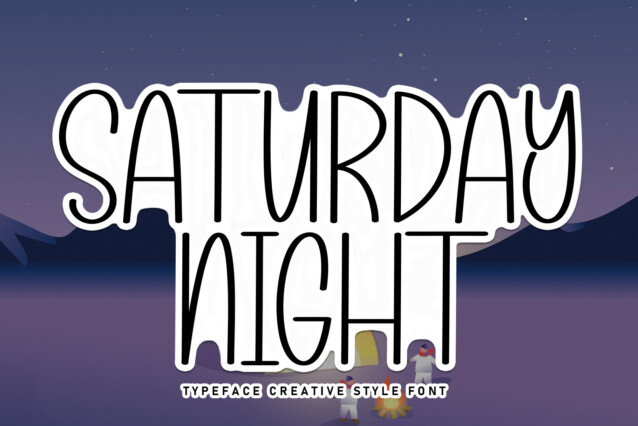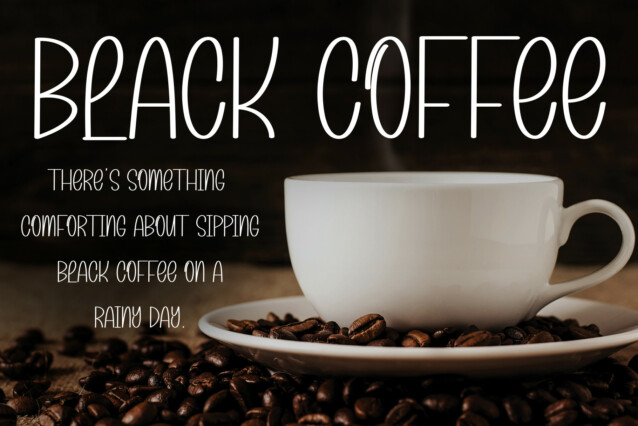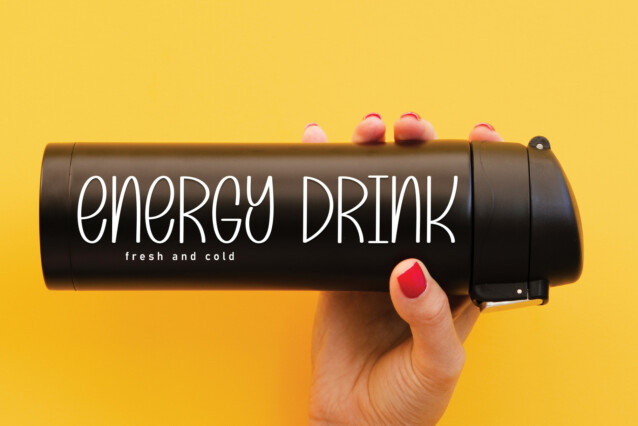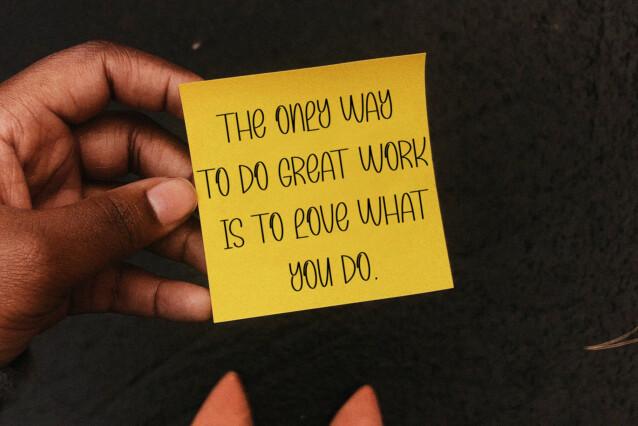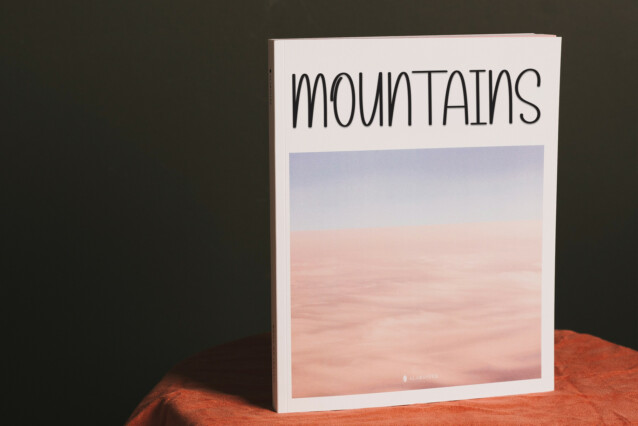
Saturday Night Typeface
Saturday Night Typeface is a stylish and delicate script font. It has a clean, thin and smooth vibe and it will be a hit for any design that you want to add it to.